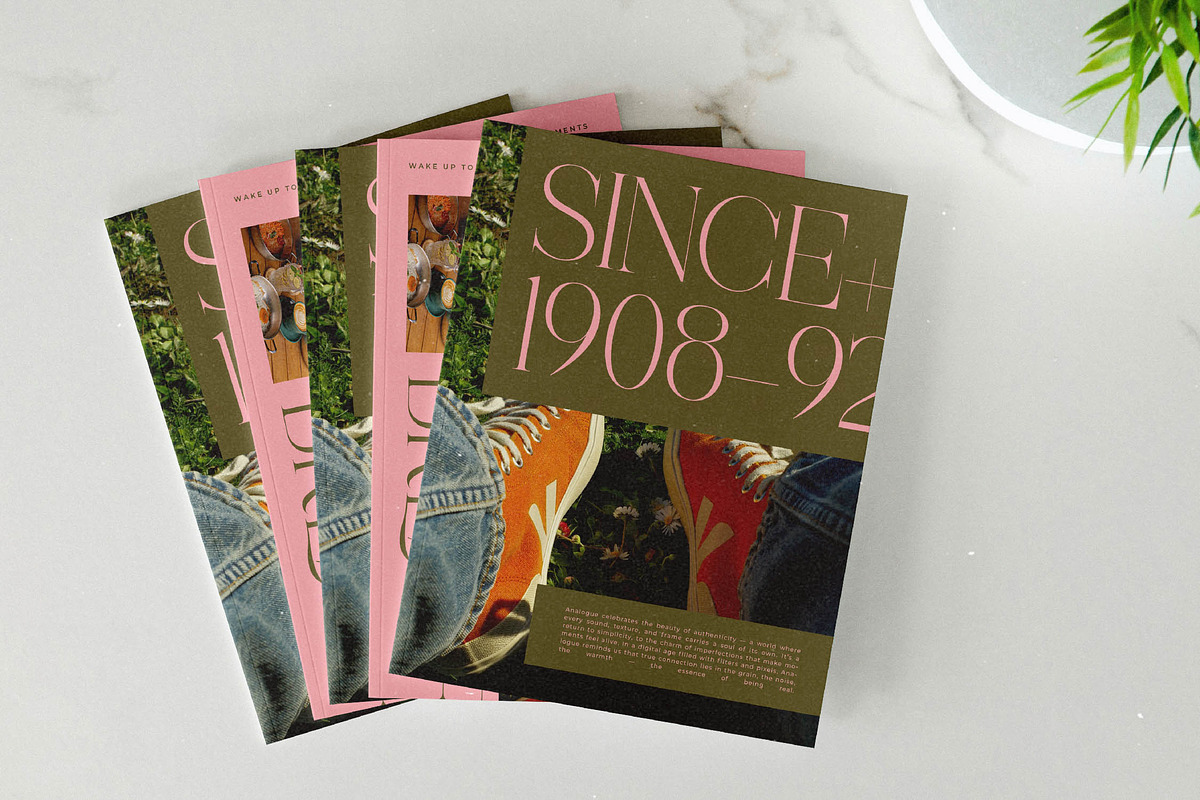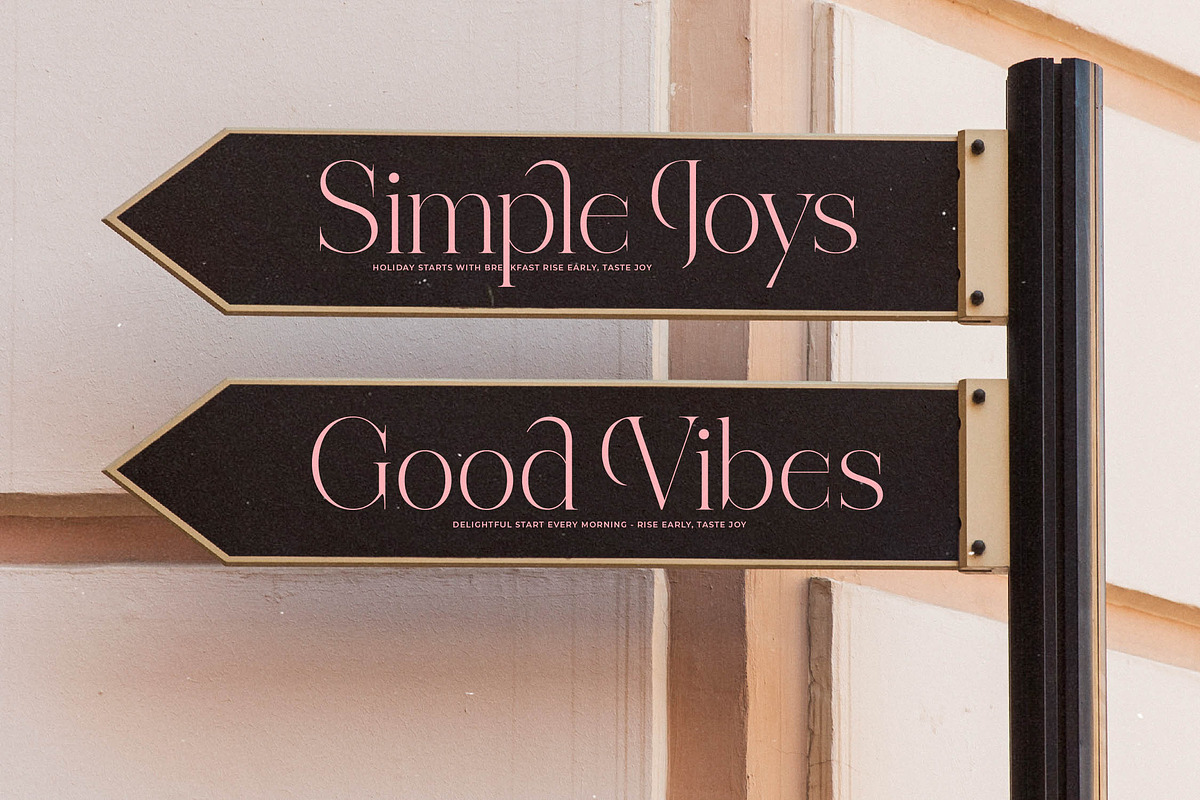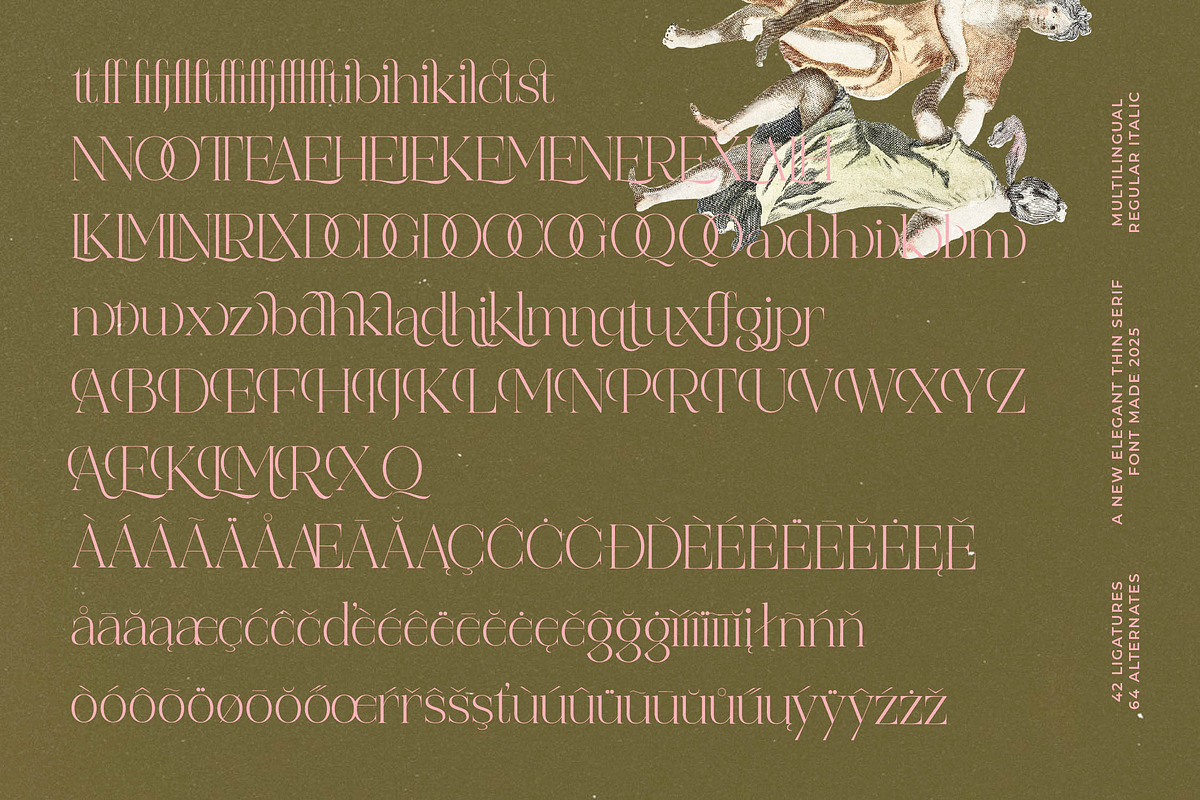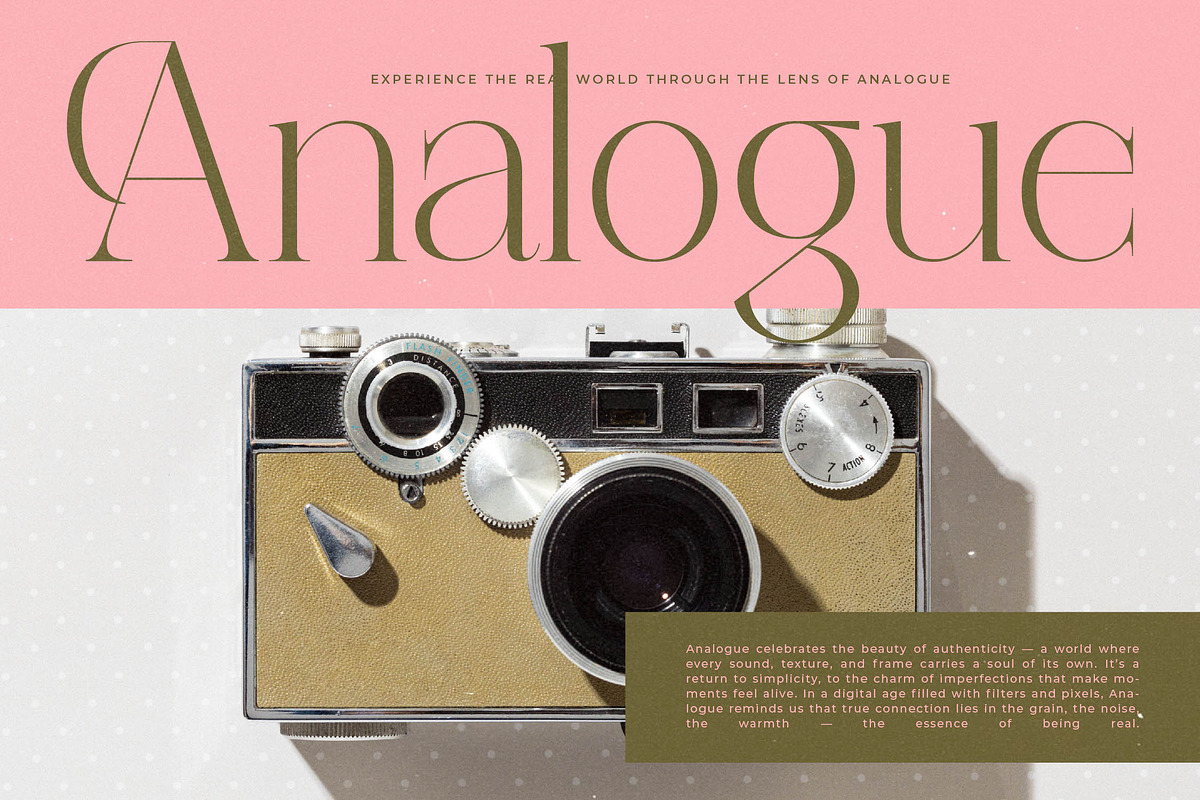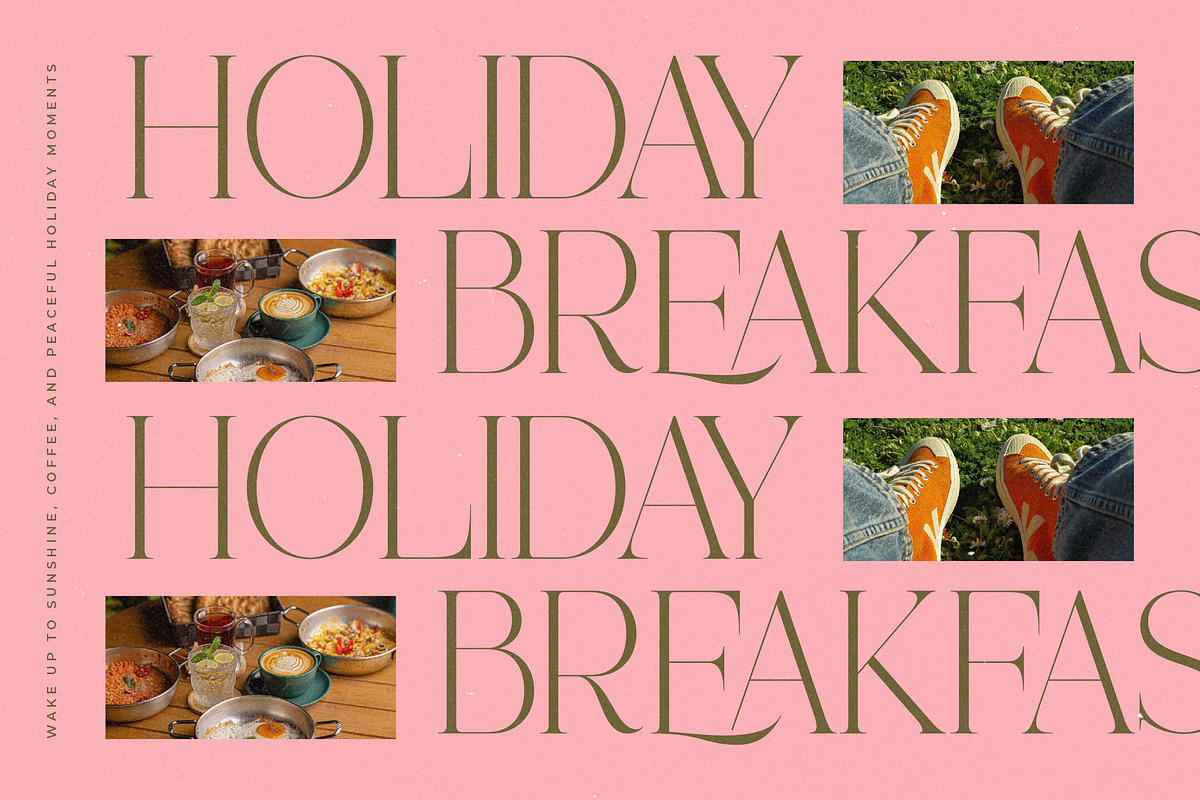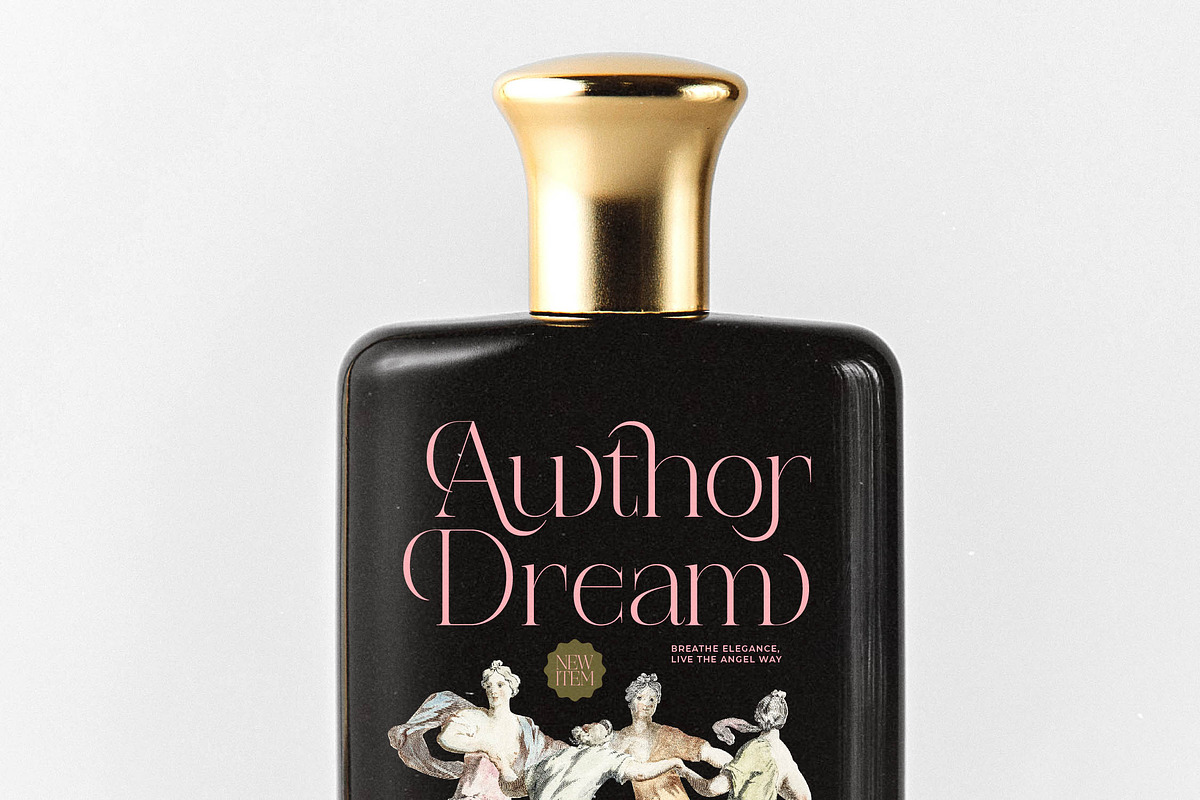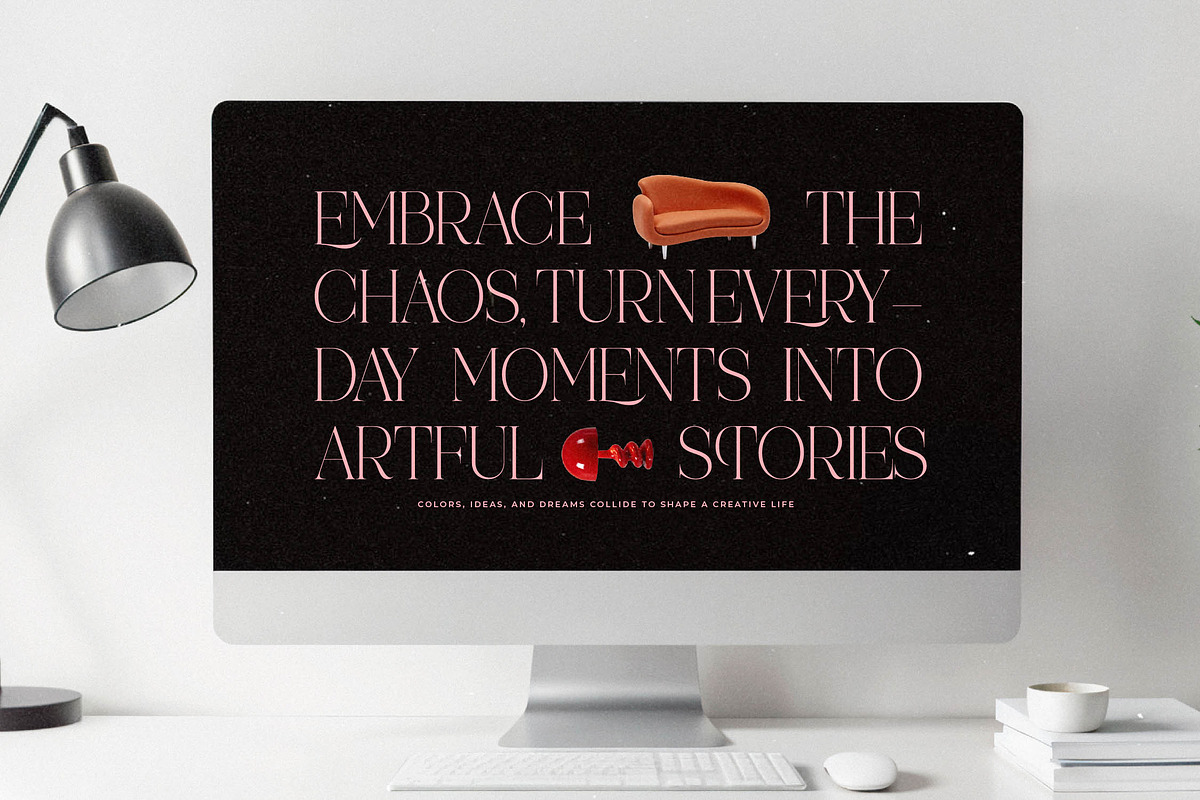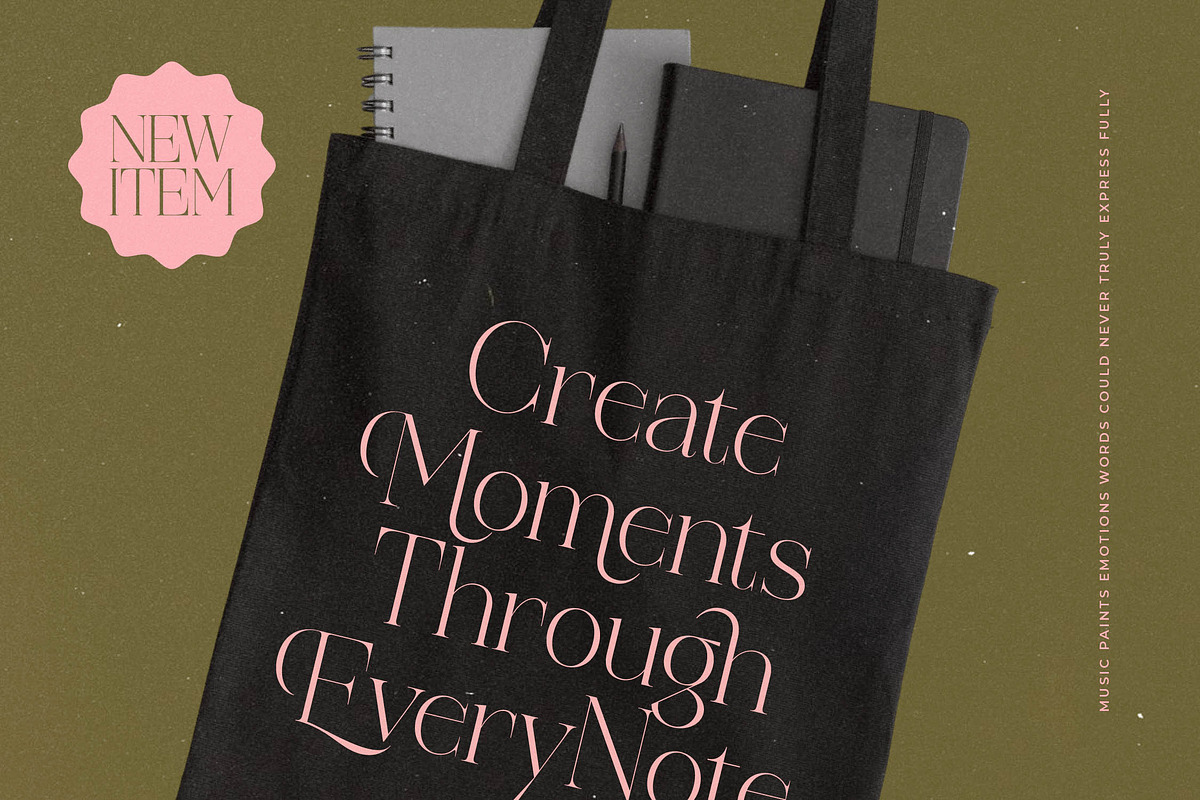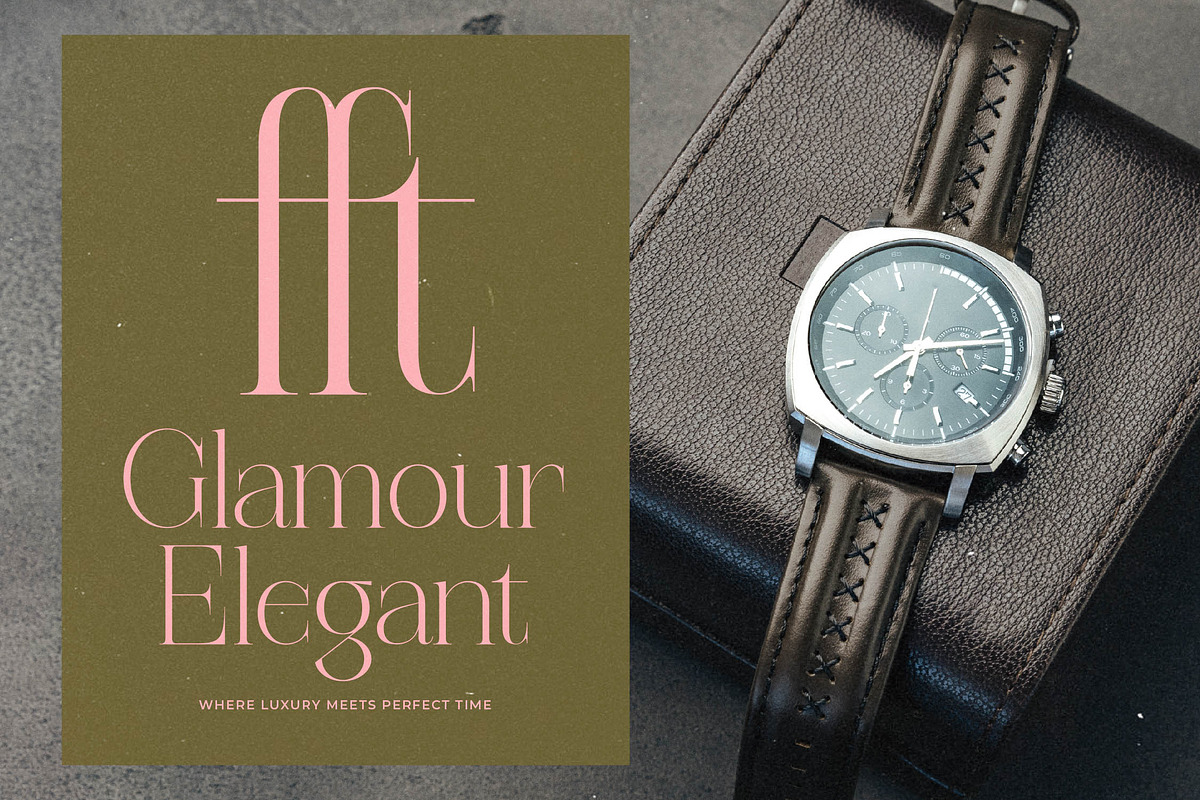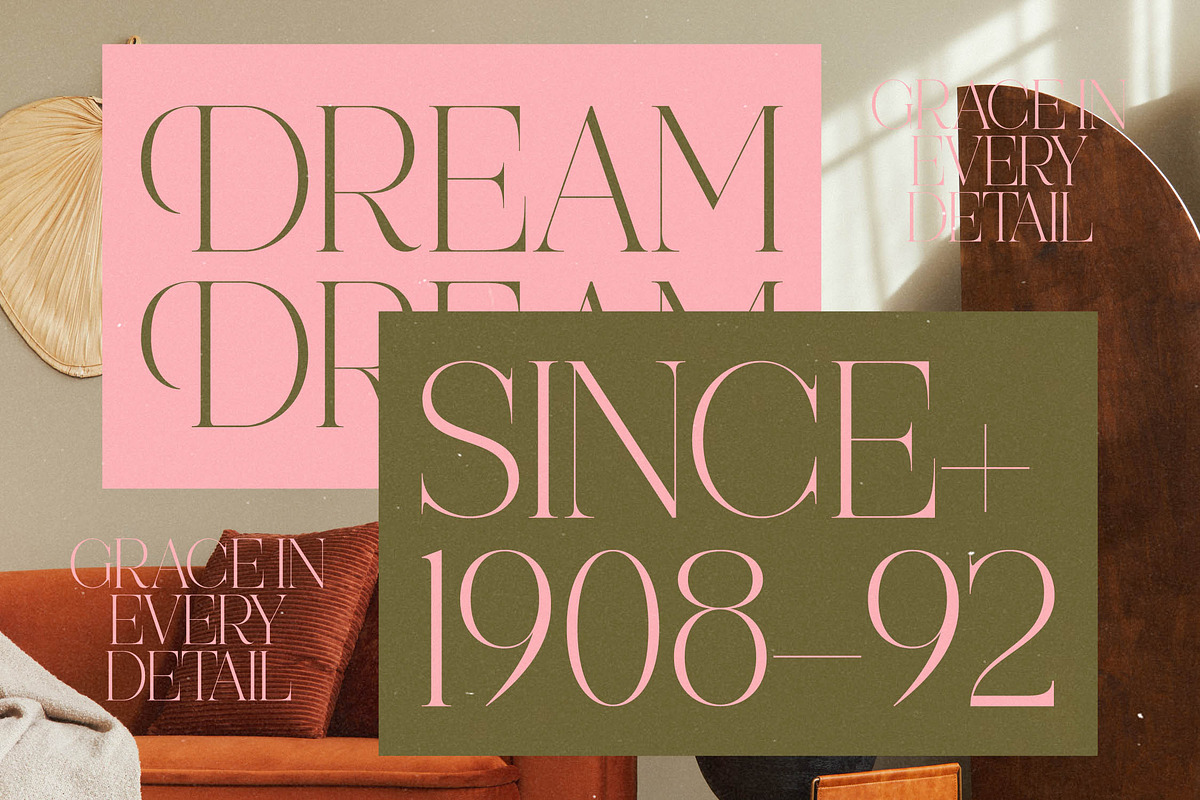
Reaons | Elegant Thin Serif Font
Step into a world of unparalleled grace with Reaons, a typeface designed to elevate every composition into a realm of pure aesthetic brilliance. This font captures the essence of delicate power, offering a visual language that speaks in whispers of gold and velvet.
Drawing inspiration from the fluid lines of Renaissance sketches and the airy layouts of vintage European journals, the atmosphere of this typeface is both nostalgic and forward-facing. It evokes the feeling of a sun-drenched atelier where art and history intersect with modern minimalism.
This modern serif display is a premier choice for luxury typography, providing a high-contrast serif profile that ensures a high-end feel. As a dedicated editorial font, it delivers a massive branding impact through its razor-sharp hairlines and generous, sweeping curves.
Capturing the peak of the modern serif trend, this typeface is an essential tool for those curating editorial display fonts with a soulful edge. It meets the rising demand for character-driven typography that breaks away from the generic to offer something truly bespoke and memorable.
Designers will find endless utility in this font for logo design and premium branding projects that require an air of exclusivity. It shines brilliantly in editorial spreads, luxury packaging, and romantic wedding stationery, while remaining a staple for high-concept fashion marketing.
Unlock your creative potential with 42 specialized ligatures and 64 stylistic alternates that allow for custom-tailored headlines. The font features full multilingual support and a comprehensive range of international characters, making it a versatile powerhouse for global design projects.